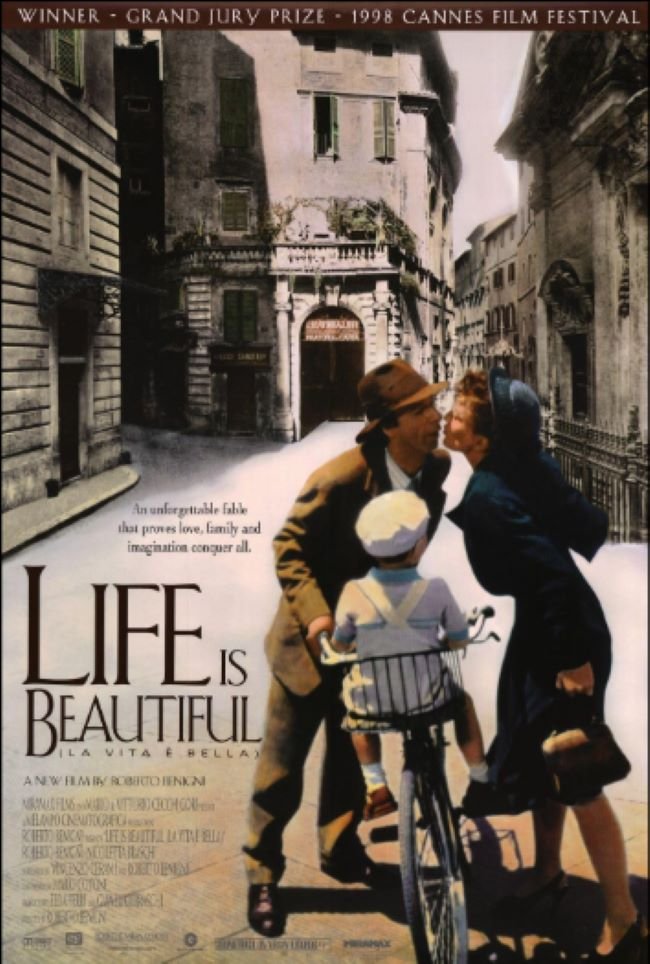
Life Is Beautiful font achieves something quietly remarkable — it holds warmth and grief in equal measure, just like Roberto Benigni’s unforgettable 1997 film. The title lettering draws from the tradition of Palatino Linotype, Hermann Zapf’s enduring humanist serif, whose graceful curves and generous proportions create a sense of intimacy and timelessness that perfectly suits a story told equally through laughter and tears.
It’s a typeface that never shouts — it invites. That quality makes it exceptionally versatile for designers working on projects that require emotional depth without melodrama: illustrated book covers, thoughtful editorial layouts, personal memorials, wedding invitations, or any creative work that needs to feel both elegant and genuinely human. As a pairing of form and feeling, few film title choices in cinema history have been this precisely right.